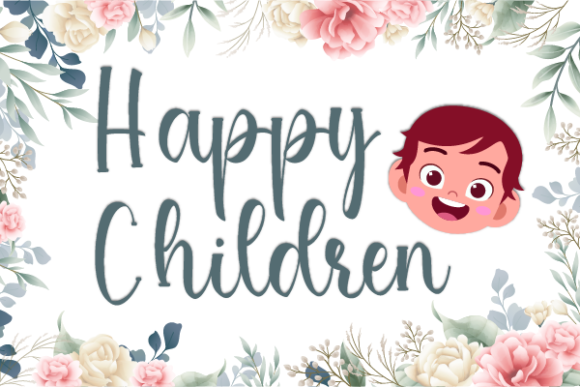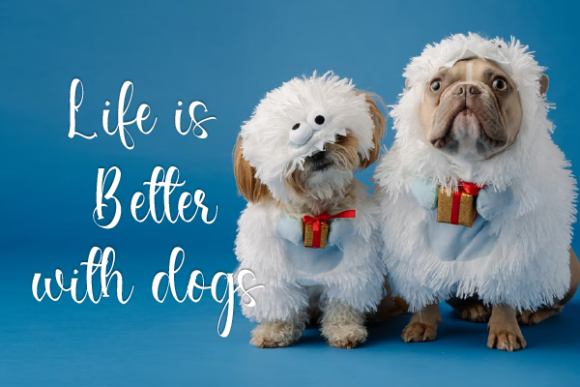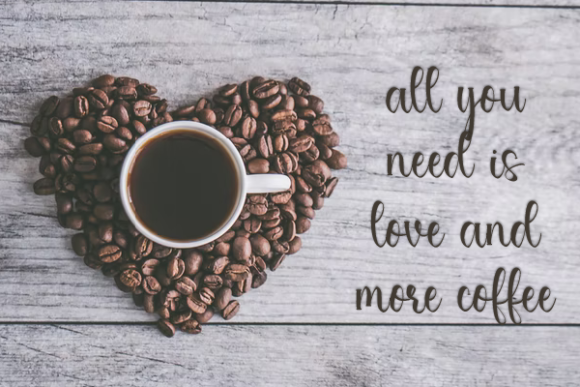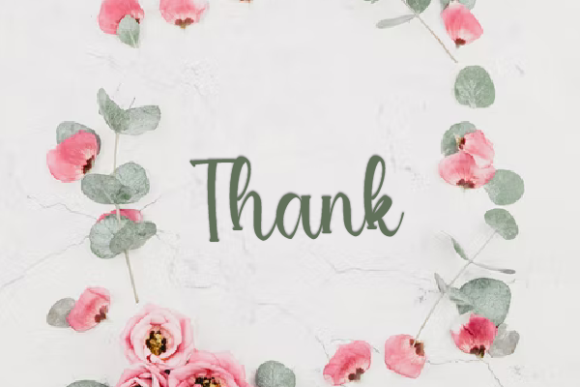
Happy Children Font
About Happy Children Font
**Happy Children** is more than just a font; it’s a superb handwritten script that distinguishes your work through its elegant and curvy lines. Tailored for a variety of applications, this font is perfect for product packaging, branding projects, magazine covers, social media, weddings, or simply expressing words above the background.
Envision **Happy Children** adding a touch of elegance to your product packaging with its superb handwritten style. The font’s curvy lines bring a unique and graceful flair, making your packaging design visually appealing and distinctive.
For branding projects, **Happy Children** becomes a standout choice, infusing a sense of charm and sophistication into your visual identity. The elegant and curvy lines of the font add a level of uniqueness that captures attention.
In magazine covers, **Happy Children** lends a superb and artistic touch, making your publications visually striking and engaging. The handwritten script brings a warm and friendly feel, setting a positive tone for your content.
On social media, this font stands out, whether used in posts or as part of your brand logo. Its superb handwritten style adds a personal and expressive touch, making your digital presence more memorable.
For weddings and special events, **Happy Children** brings an extra layer of elegance to invitations or decor elements. Its graceful lines and superb handwritten script create a romantic and charming atmosphere.
Let **Happy Children** be the font that elevates your work, making it stand out with its elegant and curvy lines. Its versatility makes it suitable for various projects, ensuring a touch of sophistication and uniqueness in every application.